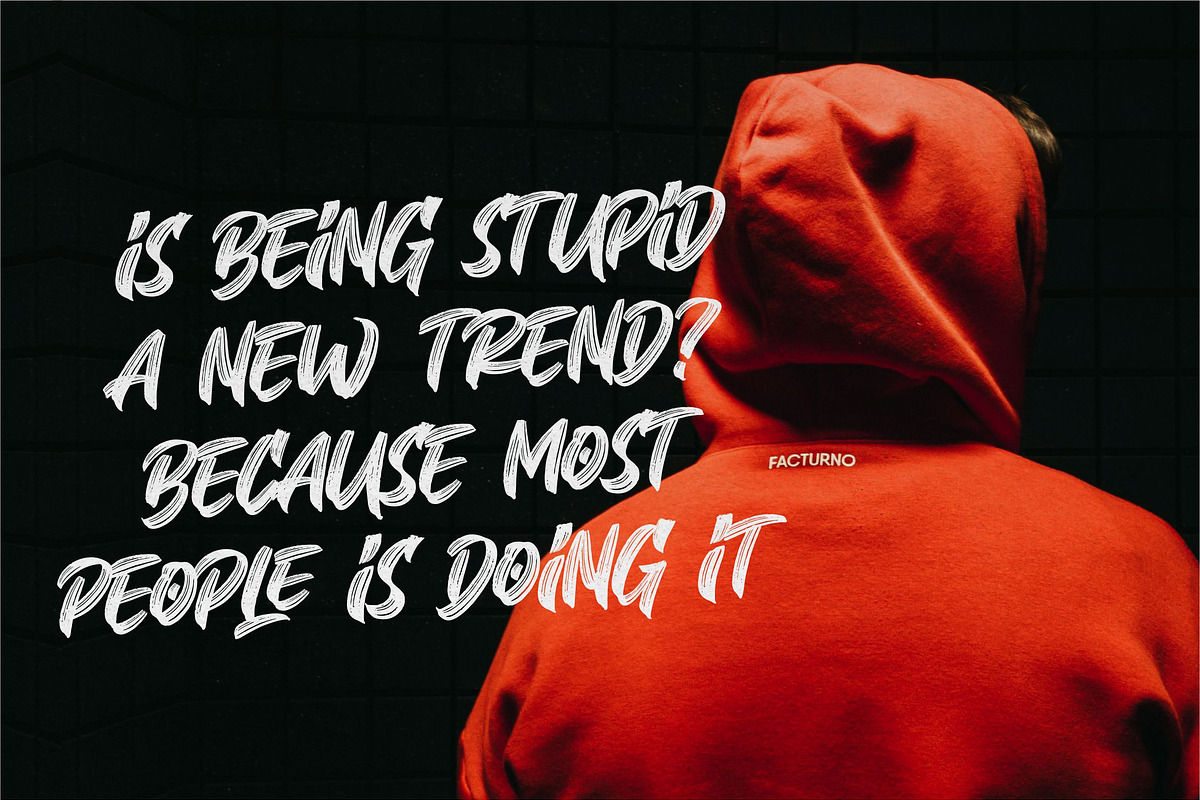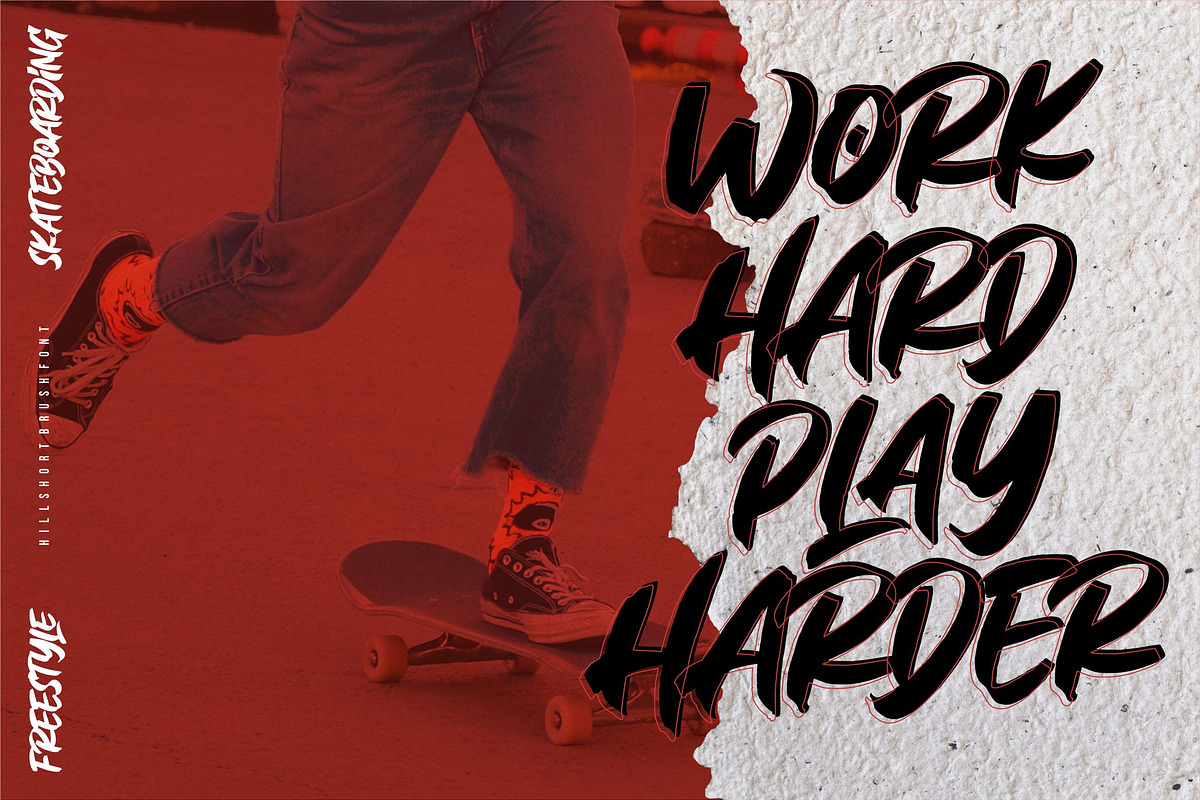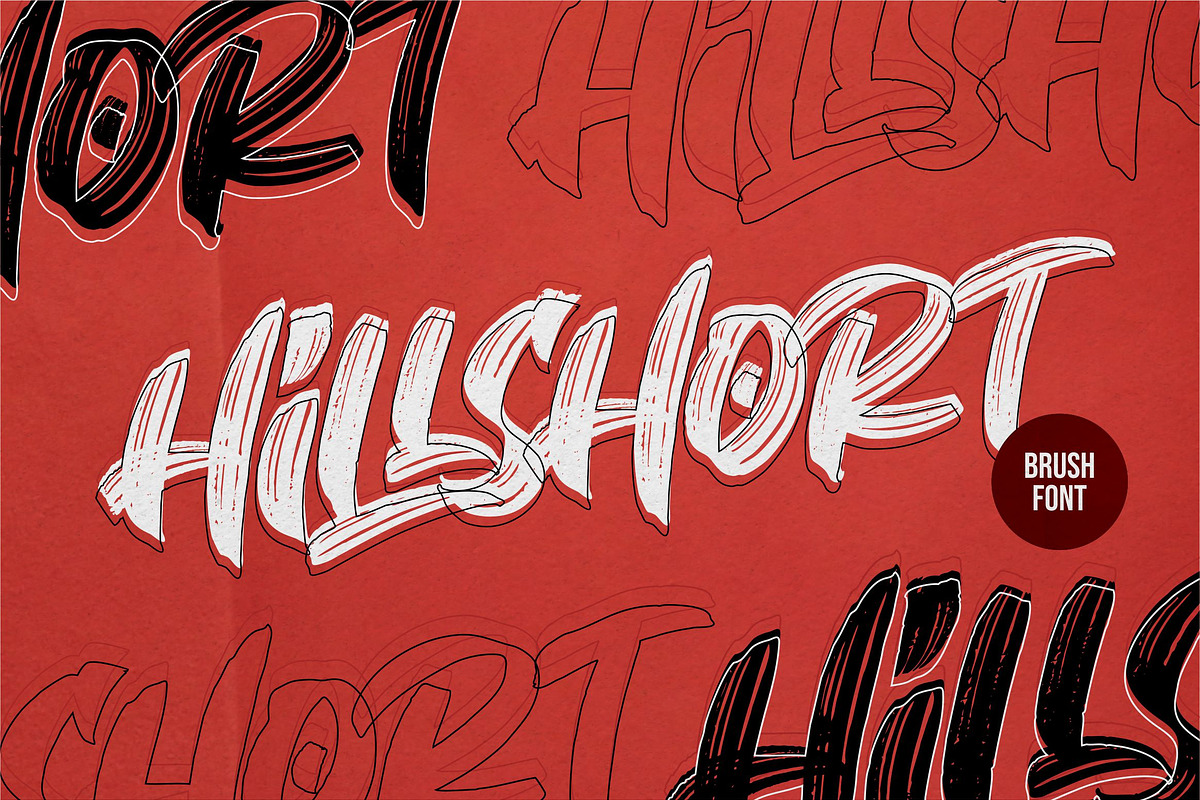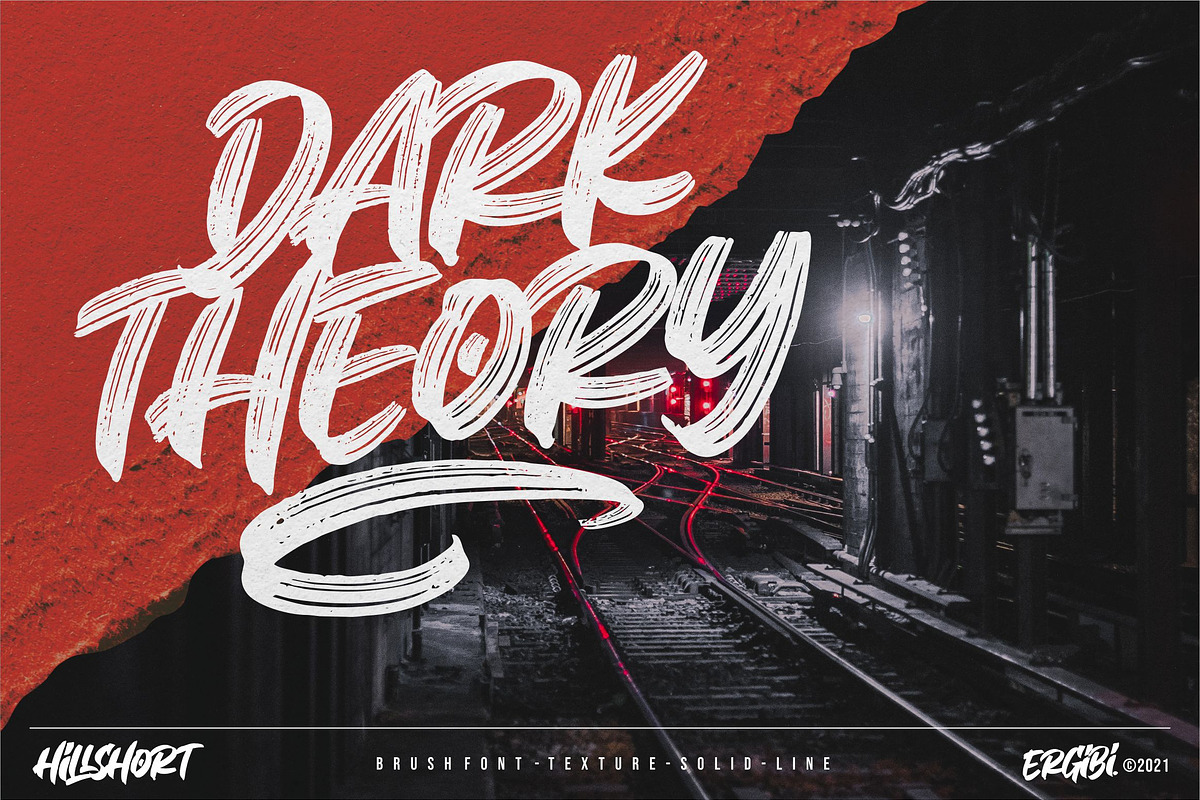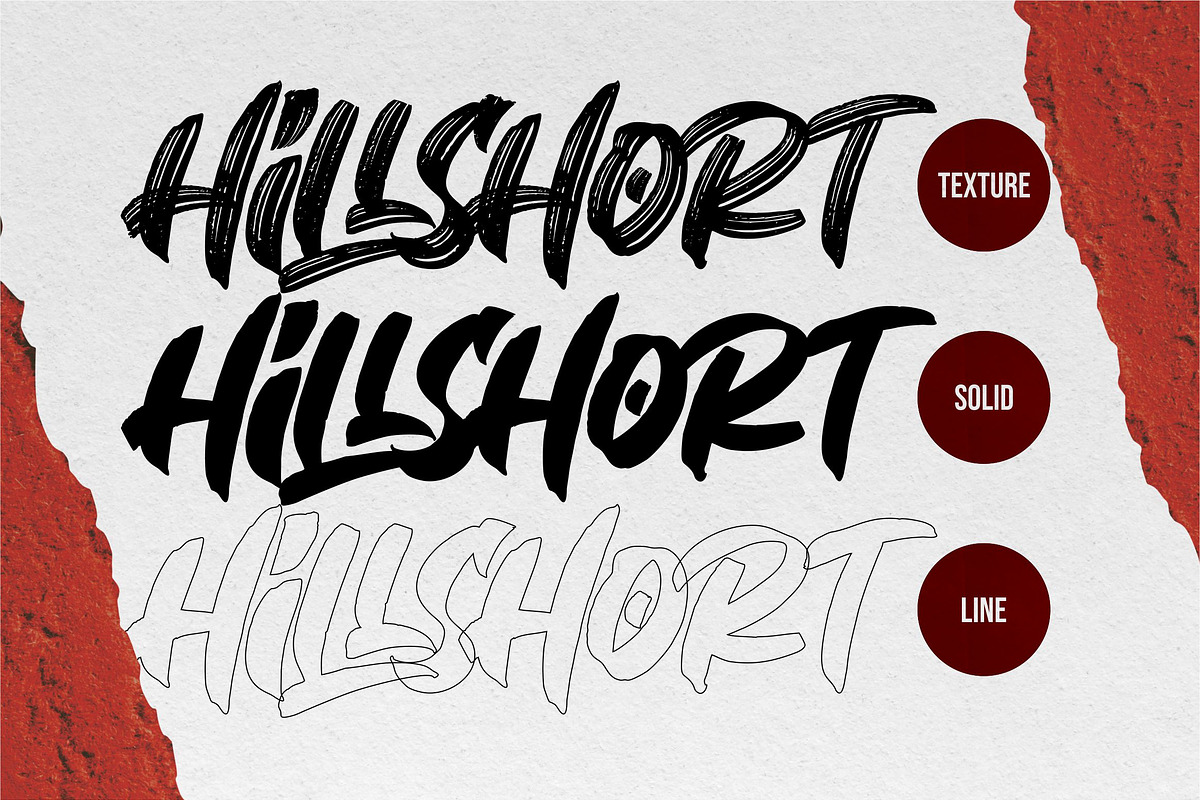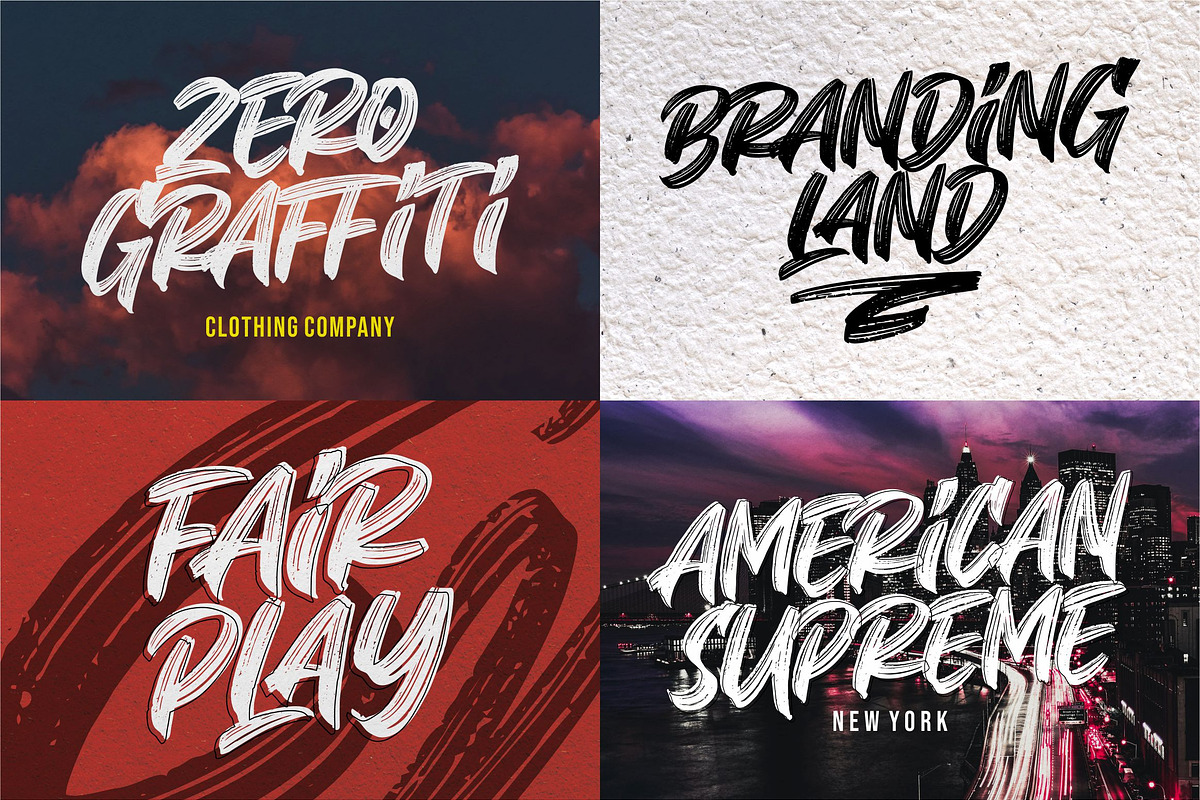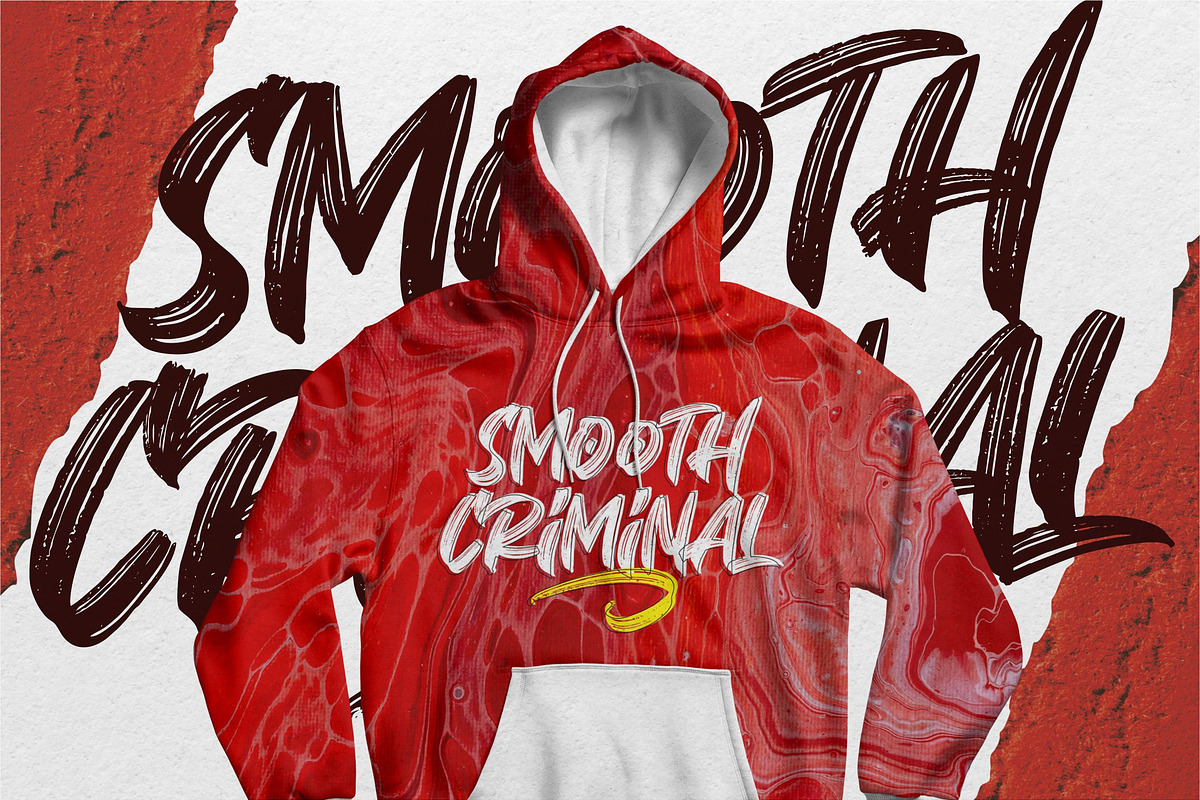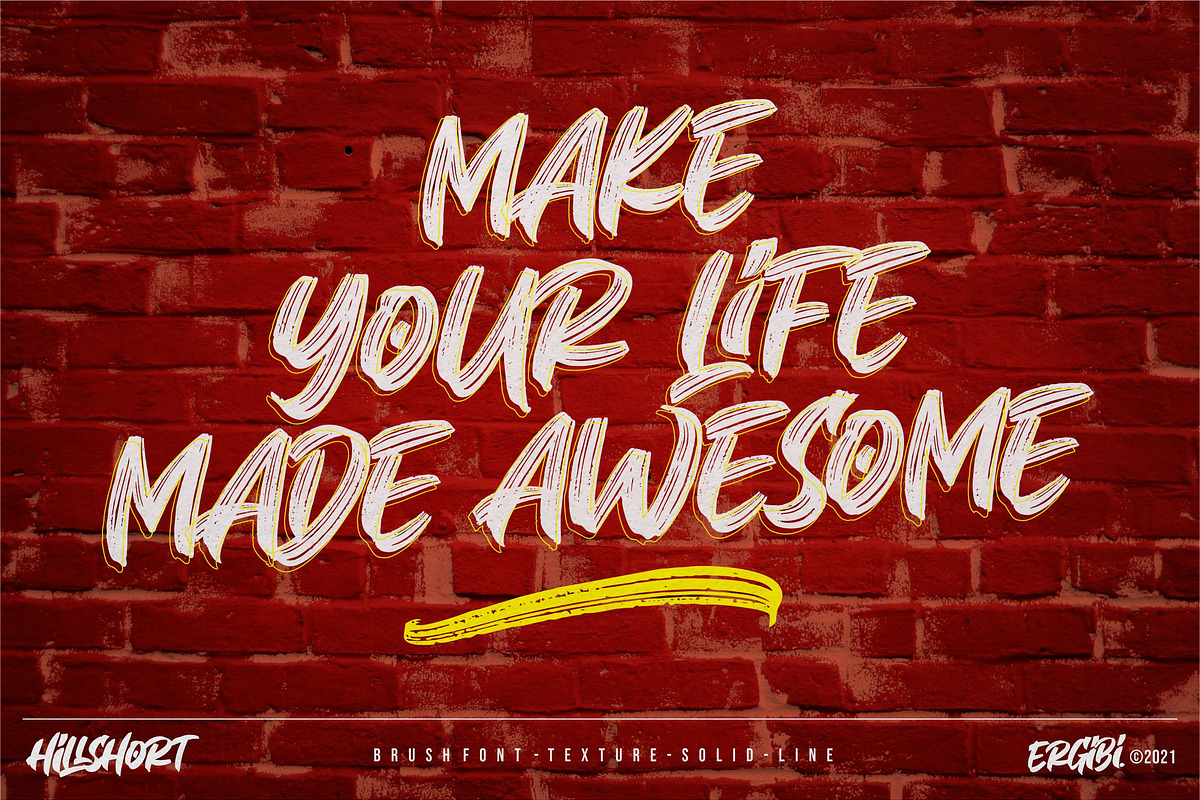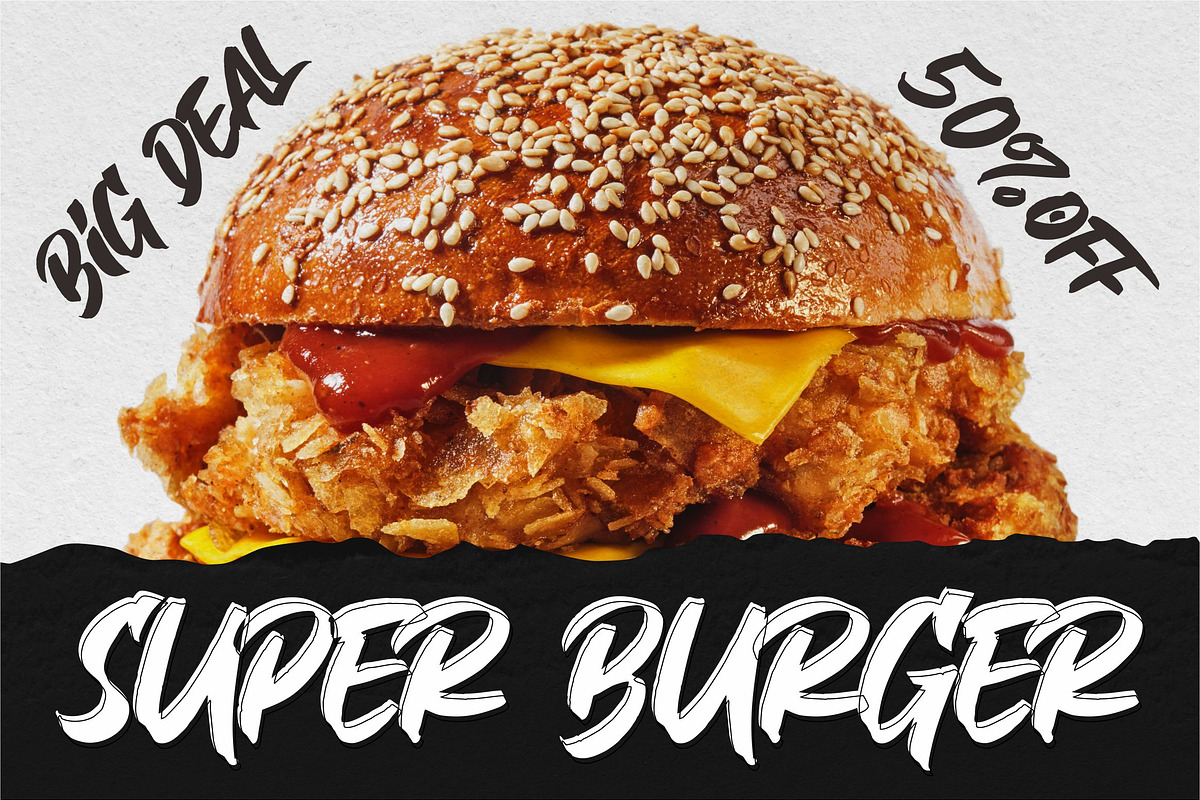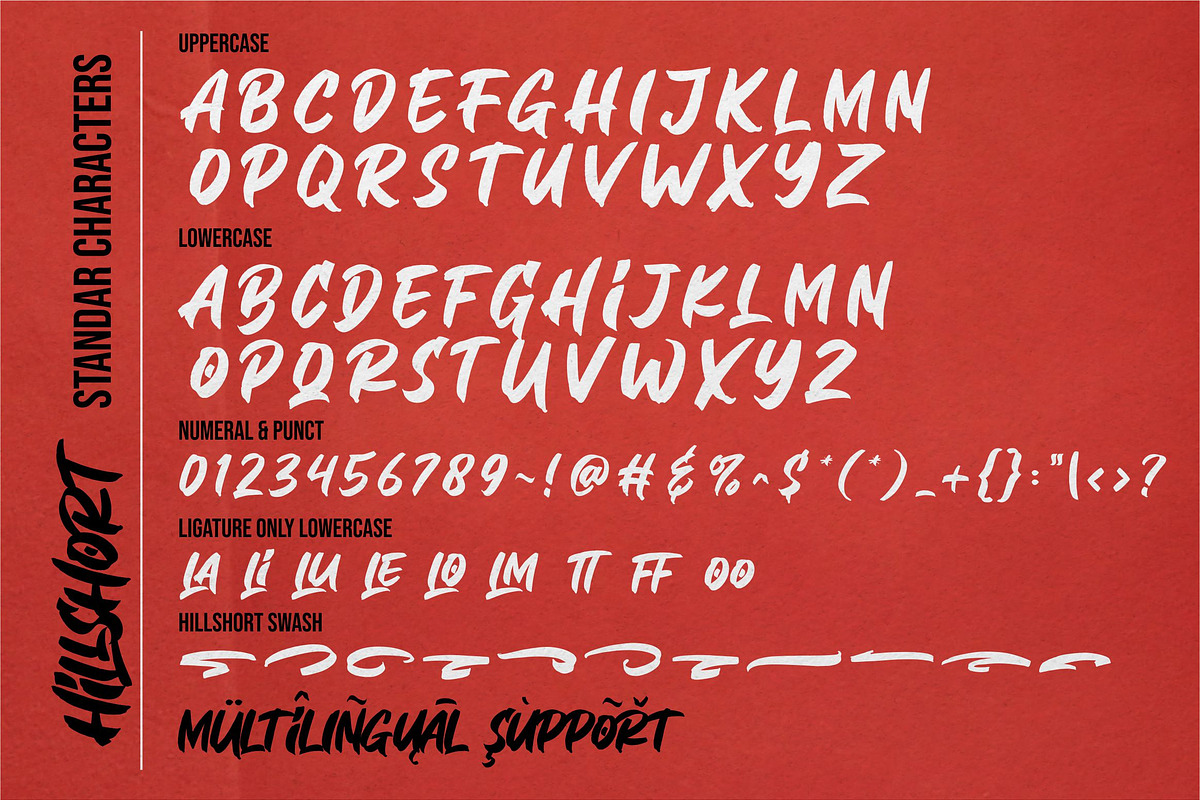
Hillshort -Urban Brush-
Hillshort is a font type brush with additional fonts as the outline and solid that you can adjust the color to make this font look more perfect. Hillshort is ideal for urban design, logos, apparel,T-shirt,Hoodie, graffiti,quotes, product packaging, or anything which needs a typographic turbo-boost.
Hillshort features comes with All Caps Uppercase & Lowercase, Numeral, Punctuation, Stylistic/Alternate Characters, and also Support Multi Language.